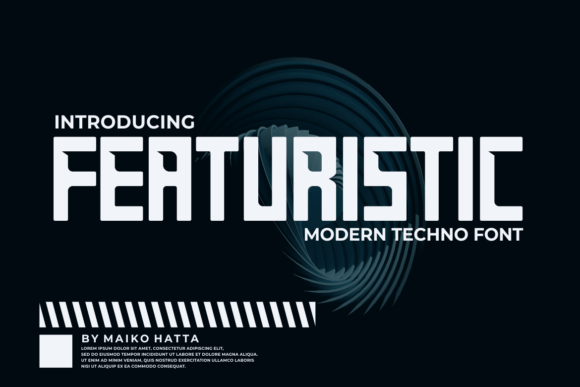
The Perfect Match for Your Next Creative Project
You’ve spent hours brainstorming ideas, pouring over inspiration, and perfecting your design – and finally, you’re ready to bring it all together. The moment of truth arrives when you need to choose a font that perfectly captures the essence of your vision. That’s where the Featuristic Font comes in – a bold and authentic display font designed to make your work stand out in any context.
This versatile font is the perfect companion for any branding project, from logos and T-shirt printing to esports and beyond. What makes it truly valuable for designers is its ability to add an extra layer of authenticity and personality to your work. Whether you’re working on a high-energy campaign or a more subtle, understated design, the Featuristic Font is guaranteed to elevate your project to the next level.
Key Features of Featuristic Font
- Font Family: A unique combination of modern and vintage elements, resulting in a distinctive aesthetic.
- Unique Characteristics: Features a range of stylistic sets, including swashes, ligatures, and contextual alternates.
Featuristic Font Review
Overall, I’d say that Featuristic Font is a decent choice for designers looking to add some flair to their projects. Here are some things that stand out: ✨
- It has a unique and playful feel that can add a touch of whimsy to a design.
- The font is highly customizable, with a wide range of options for adjusting the style and layout.
- It’s highly versatile and can be used in a variety of contexts, from logos to body text.
However, there are also some limitations to consider: ⚠️
- The font can be a bit overwhelming if used in large quantities, so be careful not to overdo it.
- It may not be the best choice for projects that require a more serious or professional tone.
- The font’s complexity can make it difficult to read at smaller font sizes.
Overall, I’d give Featuristic Font 3.5 out of 5 stars. It’s a fun and versatile font that can add some personality to a design, but it’s not without its limitations. With some careful use and consideration, it can be a great addition to a project. But use it sparingly, and be mindful of the context in which it’s being used.
Getting the Most Out of Featuristic Font
Featuristic Font is perfect for:
- Creatives looking for a unique and modern font style.
- Businesses seeking to add a touch of sophistication to their branding.
- Designers wanting to create visually appealing and engaging content.
Featuristic Font is commonly used in:
- Logos and branding materials.
- Marketing materials, such as brochures and flyers.
- Presentations and reports.
- Web design and development projects.
Alternatives to “Featuristic Font” for Designers
Featuristic Font is a popular font choice among designers, but sometimes it may not fit the design requirements. Here are some alternatives that can be used in different situations.
Open Sans is a clean and modern sans-serif font. It is highly legible and works well for body text. Use Open Sans when you want a clean and simple design that doesn’t distract from the content. Compared to Featuristic Font, Open Sans is more minimalist and doesn’t have the same level of flair, but it is more versatile and can be used in a wide range of applications.
Lato is a modern sans-serif font that is highly legible and works well for body text. It has a slightly more elegant feel than Open Sans and is a good choice when you want to add a touch of sophistication to your design. Compared to Featuristic Font, Lato is more understated and doesn’t have the same level of drama, but it is a good choice when you want a clean and elegant design.